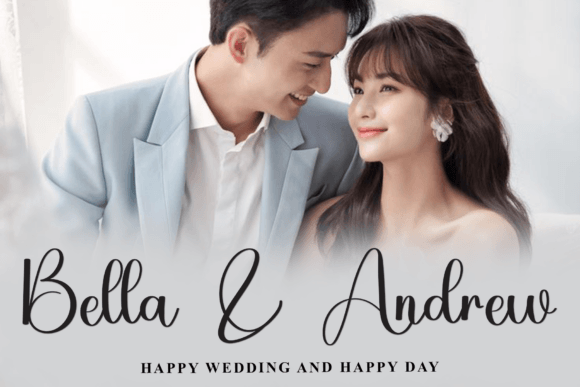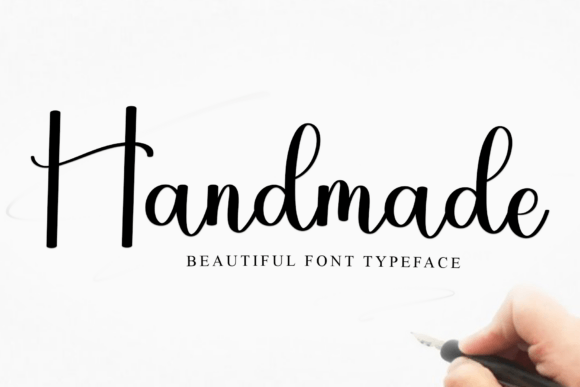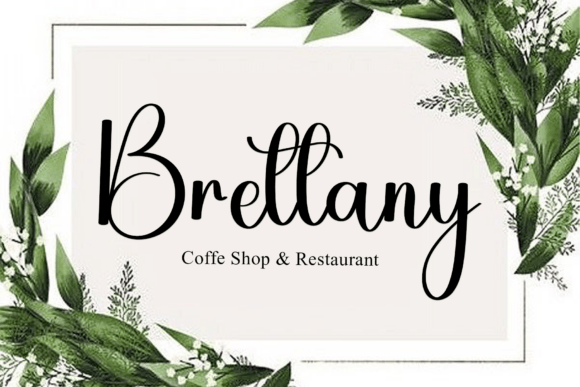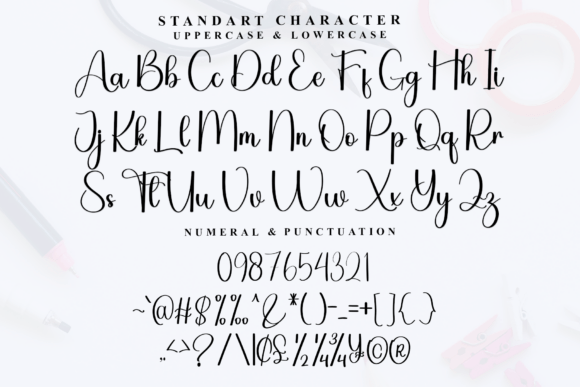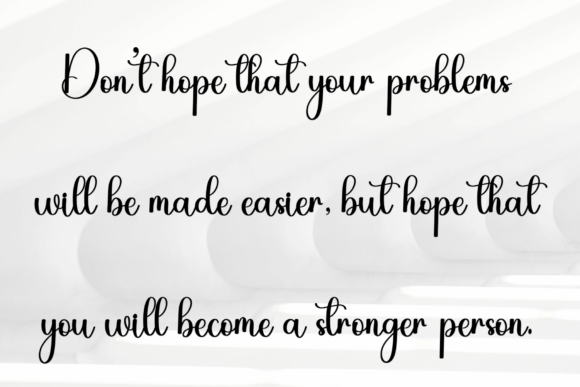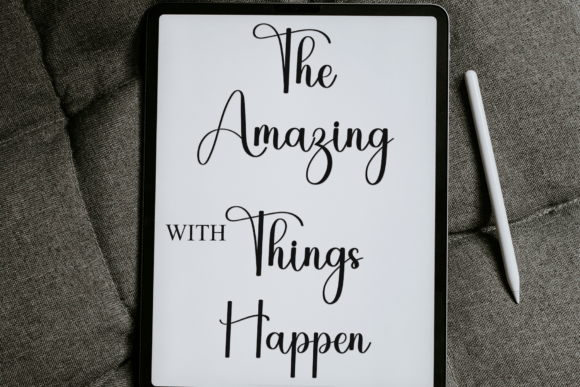
Baby Aletha Font: A Festive and Merry Typeface for Holiday Designs
The holiday season is upon us, and with it comes the need for designers and crafters to create festive and merry designs that capture the spirit of the season. One of the most important elements of any design is the font, and that’s where Baby Aletha Font comes in. This beautiful typeface is perfect for adding a touch of enchantment to your holiday designs, and in this article, we’ll take a closer look at what makes it so special.
Baby Aletha Font is a decorative typeface that is specifically designed to capture the spirit of the holiday season. With its whimsical flair and festive elements, it’s the perfect choice for designers and crafters who want to add a touch of magic to their designs. Whether you’re creating greeting cards, gift tags, or holiday-themed projects, this font is sure to bring a cheerful and nostalgic ambiance to your words.
Perfect for Holiday Designs
So, what makes Baby Aletha Font so perfect for holiday designs? For starters, its decorative elements and whimsical flair evoke the feeling of a winter wonderland. The font’s playful and festive vibe is sure to put a smile on anyone’s face, making it perfect for designs that need to convey a sense of joy and celebration. Additionally, the font’s classic and nostalgic feel makes it a great choice for designers who want to create designs that feel timeless and traditional.
One of the best things about Baby Aletha Font is that it’s PUA encoded, which means that you can access all of the amazing glyphs and ligatures with ease. PUA encoding allows designers to access a wide range of special characters and glyphs that can be used to add an extra layer of creativity and flair to their designs. With Baby Aletha Font, you can easily access these special characters and use them to create unique and eye-catching designs.
Use Baby Aletha Font for a Variety of Projects
Baby Aletha Font is a versatile typeface that can be used for a wide range of projects, including:
- Greeting cards: Create festive and merry greeting cards that are sure to delight your friends and family.
- Gift tags: Add a touch of magic to your gift tags with this beautiful and whimsical font.
- Holiday-themed projects: Use Baby Aletha Font to create holiday-themed projects, such as posters, flyers, and brochures.
- Crafting projects: This font is perfect for crafters who want to add a personal touch to their projects, such as scrapbooking and journaling.
Why Choose Baby Aletha Font?
So, why should you choose Baby Aletha Font for your holiday designs? Here are just a few reasons:
- Unique and eye-catching: This font is sure to stand out from the crowd and add a touch of magic to your designs.
- Easy to use: With PUA encoding, you can easily access all of the amazing glyphs and ligatures.
- Versatile: This font can be used for a wide range of projects, from greeting cards to holiday-themed projects.
- Festive and merry: Baby Aletha Font is the perfect choice for designers who want to capture the spirit of the holiday season.
In conclusion, Baby Aletha Font is a beautiful and festive typeface that is perfect for holiday designs. With its decorative elements and whimsical flair, it’s sure to add a touch of enchantment to your designs. Whether you’re a designer or crafter, this font is a great choice for anyone who wants to create unique and eye-catching designs that capture the spirit of the holiday season. So why wait? Download Baby Aletha Font today and let your typography shine with the magic of Special Font!